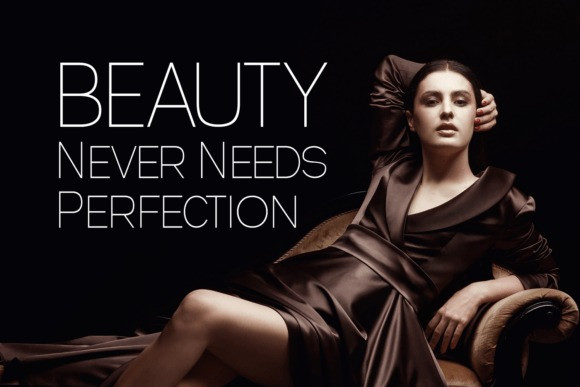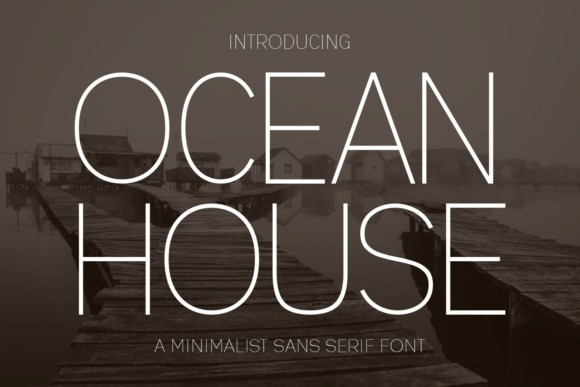
Ocean House Font
Ocean House Font is a minimalist sans serif font defined by its thin strokes, airy spacing, and elegant modern design. Its sleek and refined letterforms create a sophisticated aesthetic, perfect for branding, editorial layouts, invitations, fashion projects, and luxury packaging. With its clean and timeless look, Ocean House adds a touch of calm elegance to any design.